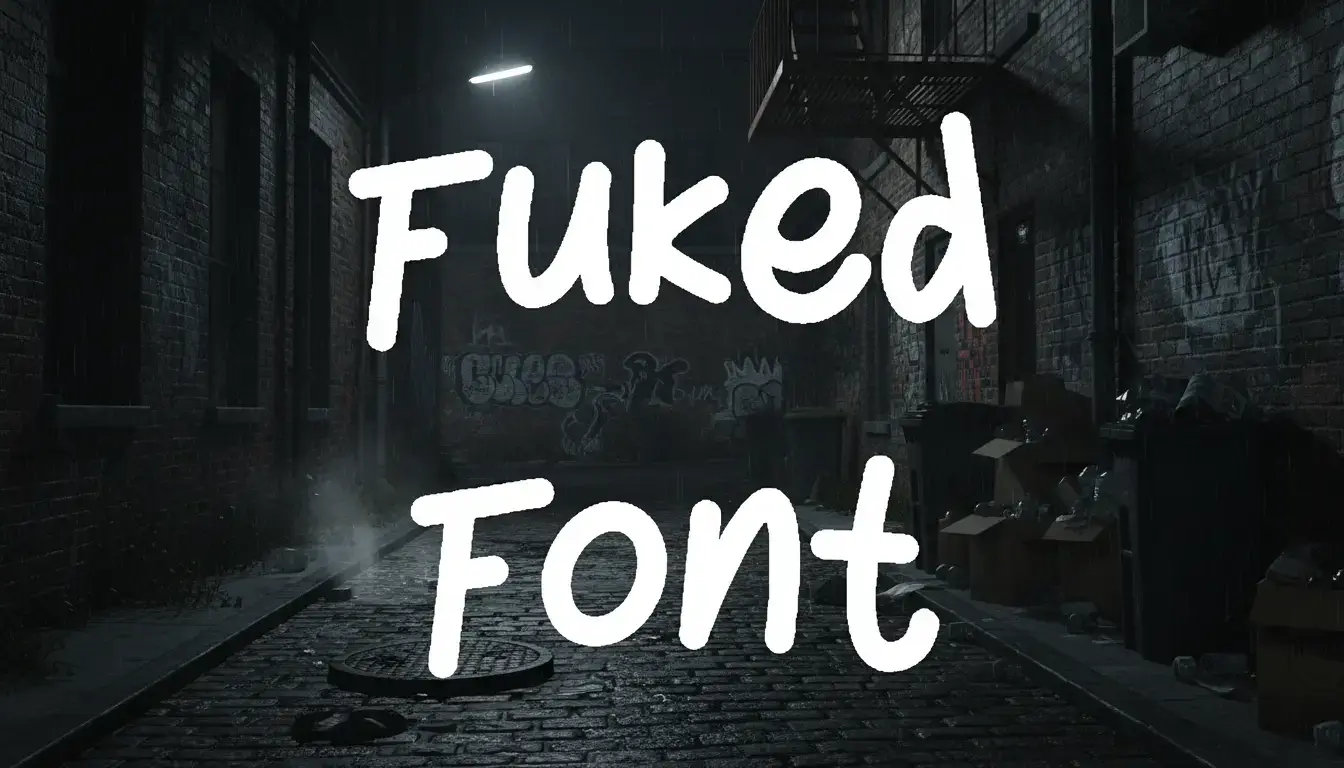
Fuked Font
Fuked is a script font designed by typefactory. Its flowing, pen-made letters give names and short phrases a personal, polished look. You can download it for free and test it with your own words in the preview above.
What You Can Type With Fuked
You get every letter from A to Z in both cases and all the numbers from 0 to 9, which means Fuked can handle full sentences, dates and prices. Everyday marks like &, !, ? and @ are there too. Thanks to its accented letters, it also works for Spanish, French, German, Portuguese and Italian, not just English.
Where Fuked Works Best
Fuked is a natural fit for wedding invitations, logos and signature-style headings. Script fonts read best in short bursts, so keep it to names, titles and one-line quotes. Skip all caps: script capitals are drawn to start a word, not to fill one.
Does Fuked support accented letters?
Yes. Fuked includes the accented letters needed for Spanish, French, German, Portuguese and Italian, so it works for more than just English.